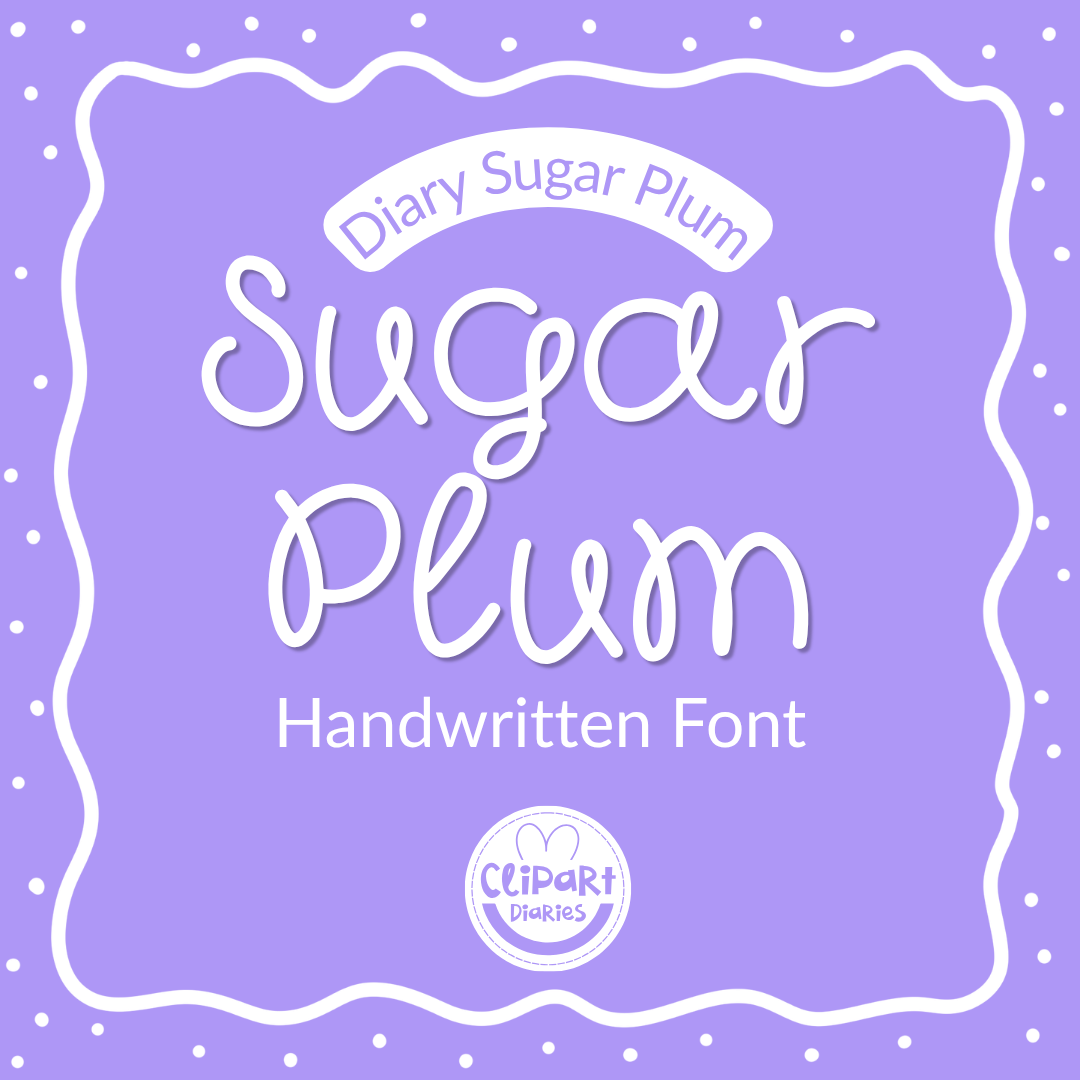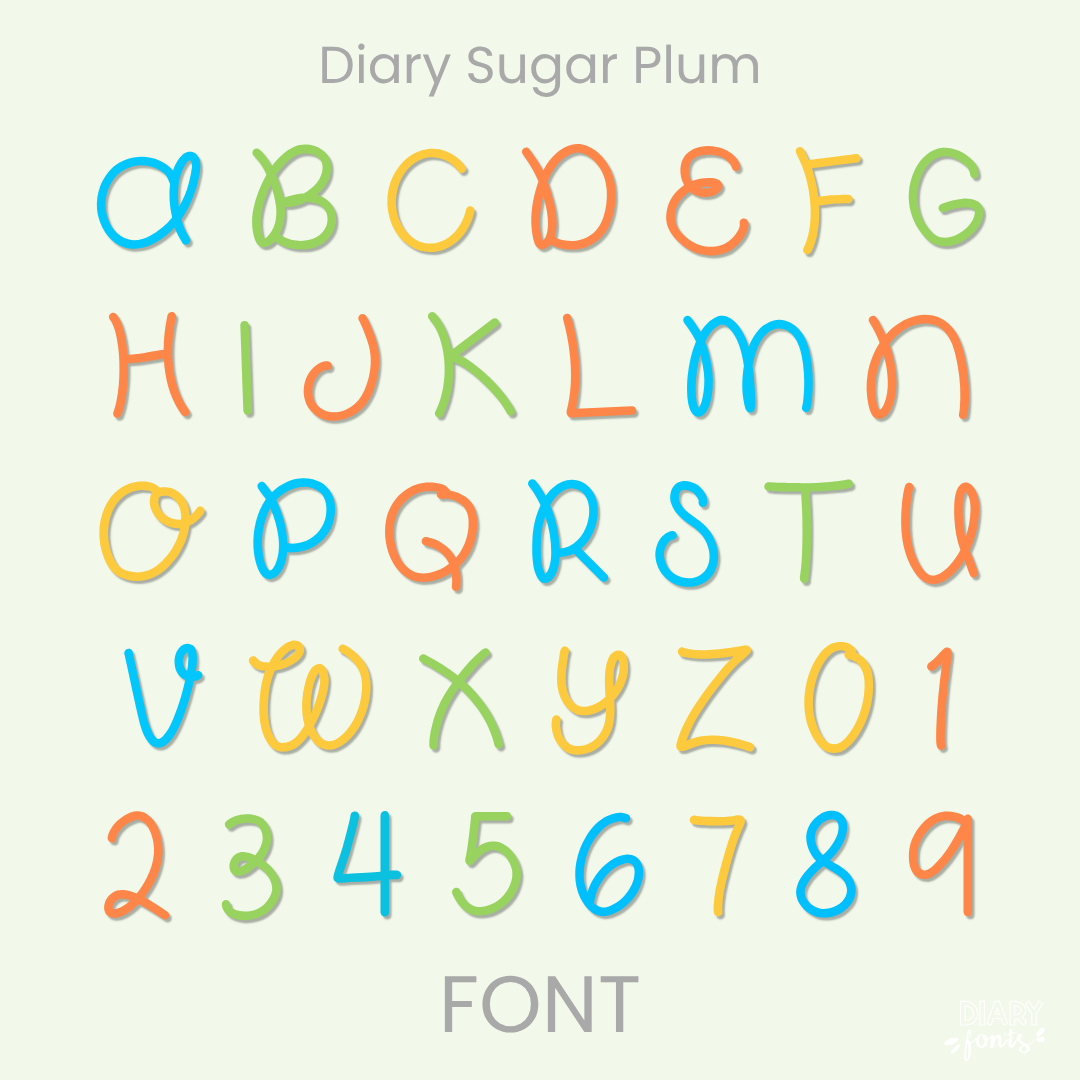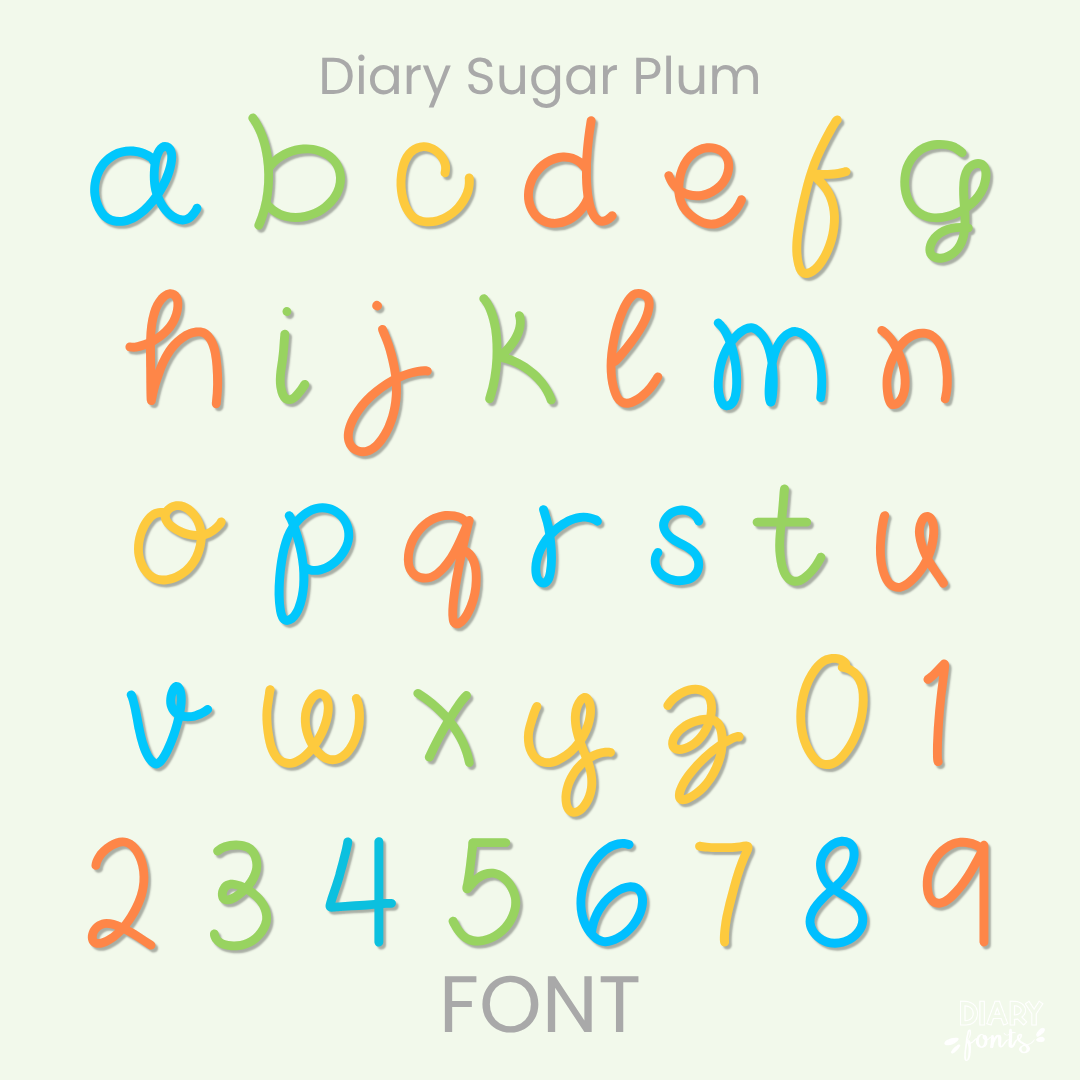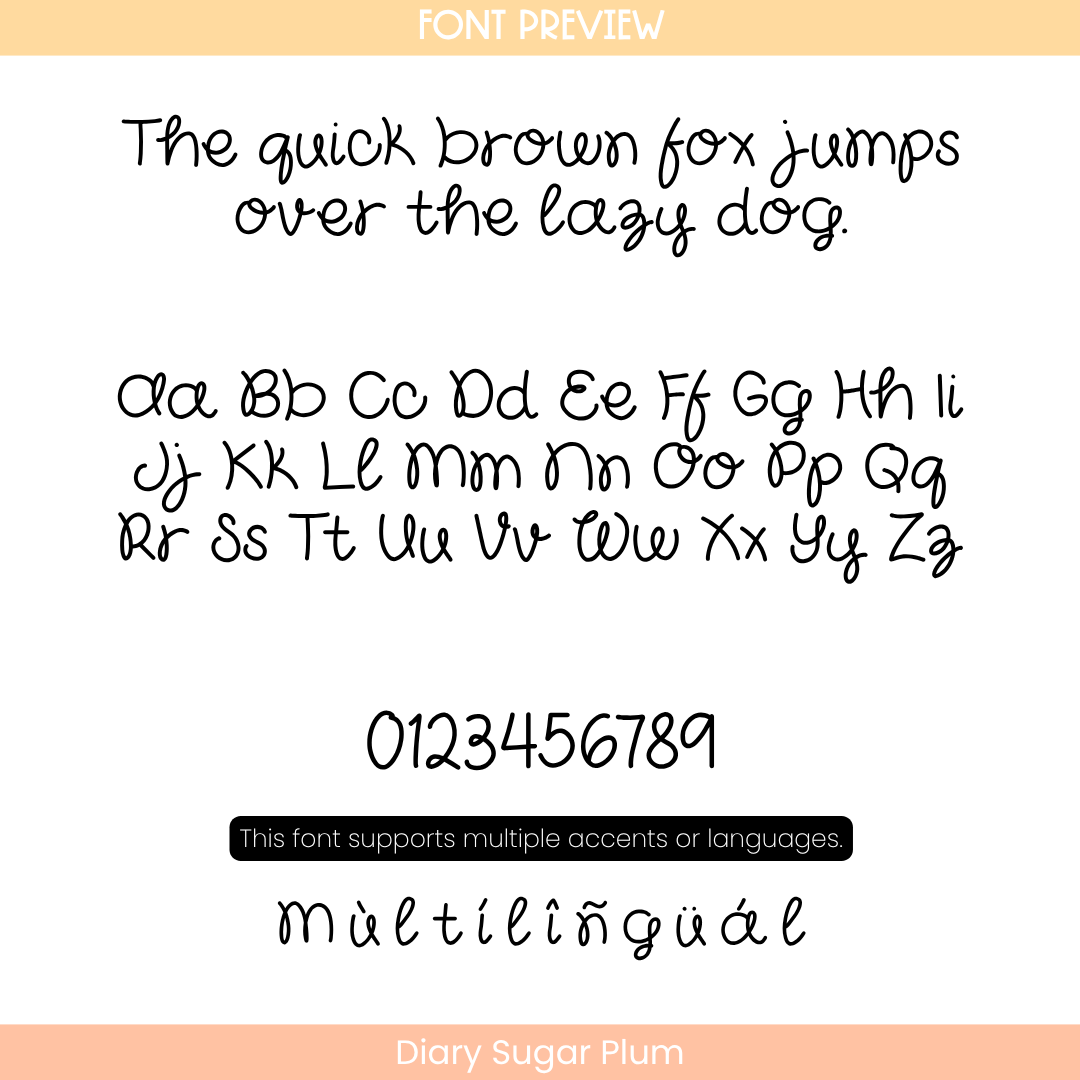
Diary Sugar Plum is that sweet, whimsical script font and cursive-inspired teacher font you need to bring a joyful, elegant, and perfectly playful hand-lettered touch to your daily classroom resources and morning slides!
If you’ve been looking for a go-to playful script font that has all the delightful charm of a flowing cursive style but keeps your layout looking incredibly neat, Diary Sugar Plum is about to become your new absolute favorite. It features a beautifully loopy, fluid character structure with elegant, single-weight strokes that dance gracefully while staying grounded along the baseline. Because these sweet, hand-drawn letters are airy, light, and designed with generous breathing room, it completely eliminates visual clutter, making it an exceptionally clear and legible worksheet typography choice for your sweet students.
It is the absolute perfect choice for typing up festive seasonal lessons, elementary school worksheets, morning meeting message boards, and fun instructional slide fonts where you want a friendly, dynamic vibe without sacrificing readability. Inside the download, you’ll get a full set of neat uppercase and lowercase script letters, clean matching digits, and multi-accent marks for complete multilingual support. It drops right into Canva, MS Office, or Adobe on your desktop, and pairs beautifully with Procreate and GoodNotes on your iPad. Whether you’re prepping daily activities for your own sweet classroom or designing a fresh new commercial-use product line for your online teacher shop, this decorative display font adds a touch of confident, warm style to your creative toolkit.